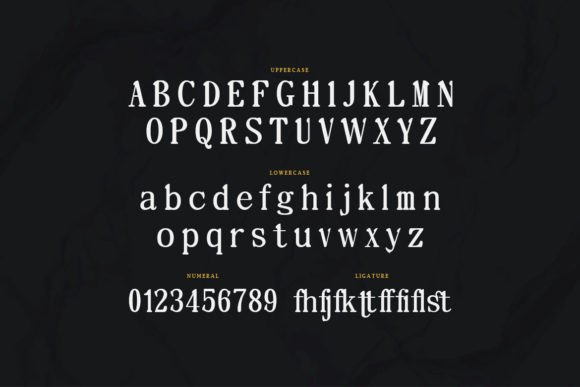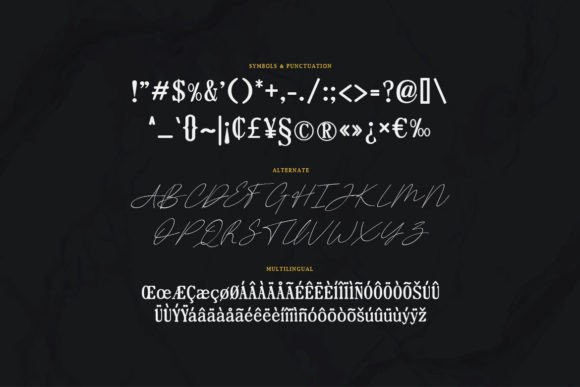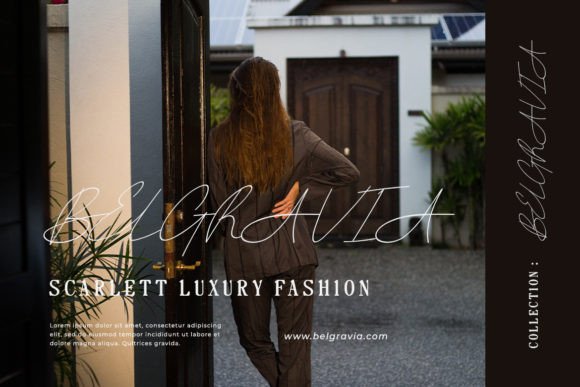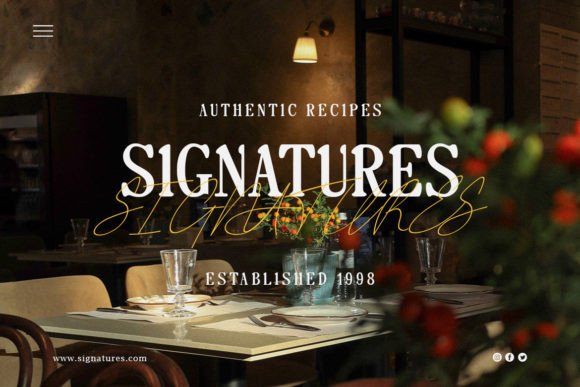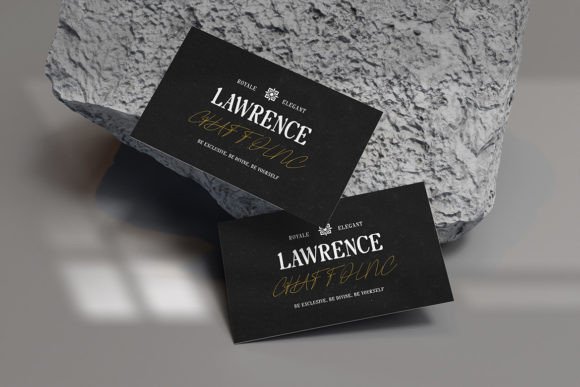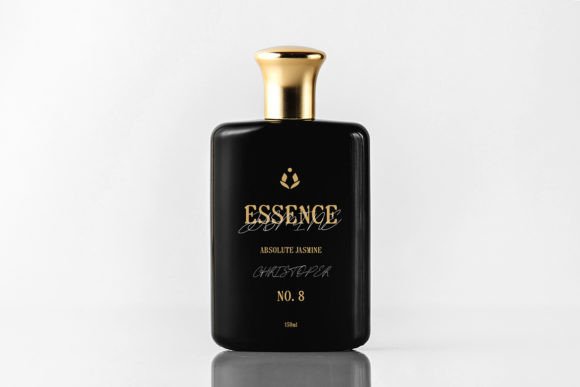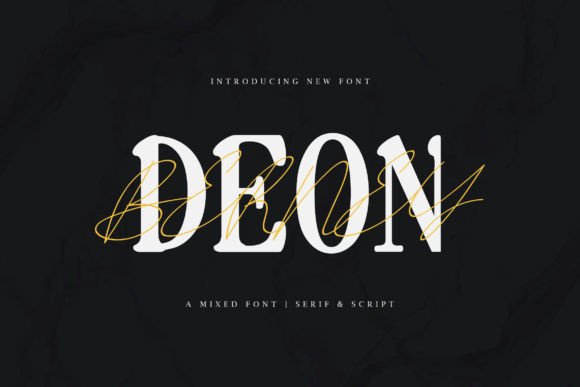
Introducing Deon Berney Font: Elevate Your Designs with this Stunning Mixed Serif and Script Font
Are you a designer or crafter looking for a font that can elevate your creations to the next level? Look no further than the Deon Berney font. This mixed serif and script font is a versatile and stylish addition to any font library, and its unique blend of traditional and modern elements makes it perfect for a wide range of design projects.
A Font that Adapts to Any Topic
One of the standout features of the Deon Berney font is its incredible adaptability. Whether you’re working on a design project for a fashion brand, a non-profit organization, or a personal blog, this font is sure to impress. Its classic serif elements provide a sense of tradition and stability, while its script elements add a touch of elegance and sophistication.
With Deon Berney, you can create stunning designs that are both visually appealing and highly effective. From logos and branding materials to social media graphics and website headers, this font is the perfect choice for any design project that requires a high level of professionalism and style.
Another key feature of the Deon Berney font is its PUA (Private Use Area) encoding. This means that you can access all of the font’s glyphs and swashes with ease, giving you even more creative freedom and flexibility. With PUA encoding, you can easily insert special characters, ligatures, and other decorative elements into your designs, taking them to the next level.
For those who may not be familiar with PUA encoding, it’s a system that allows font creators to include additional characters and glyphs in their fonts, beyond the standard Unicode character set. This means that you can access a wider range of characters and symbols, including swashes, ligatures, and other decorative elements.
PUA encoding is especially useful for designers and crafters who want to add an extra level of creativity and personality to their designs. With Deon Berney, you can easily access all of the font’s glyphs and swashes, and use them to create stunning designs that stand out from the crowd.
Features and Benefits of Deon Berney Font
So what are the key features and benefits of the Deon Berney font? Here are just a few:
- Mixed serif and script font: A unique and stylish blend of traditional and modern elements
- PUA encoded: Easy access to all glyphs and swashes
- Highly versatile: Suitable for a wide range of design projects and topics
- Elegant and sophisticated: Adds a touch of class and style to any design
How to Use Deon Berney Font in Your Designs
So how can you use Deon Berney font in your designs? Here are a few ideas to get you started:
- Logos and branding materials: Use Deon Berney to create a professional and stylish logo that sets your brand apart
- Social media graphics: Add a touch of elegance and sophistication to your social media graphics with Deon Berney
- Website headers: Use Deon Berney to create stunning website headers that grab attention and draw visitors in
- Print materials: Use Deon Berney for brochures, flyers, and other print materials that require a high level of professionalism and style
In conclusion, the Deon Berney font is an incredible asset for any designer or crafter looking to elevate their designs. With its unique blend of serif and script elements, PUA encoding, and high level of versatility, this font is sure to impress. Whether you’re working on a logo, social media graphic, or website header, Deon Berney is the perfect choice for any design project that requires a high level of professionalism and style.